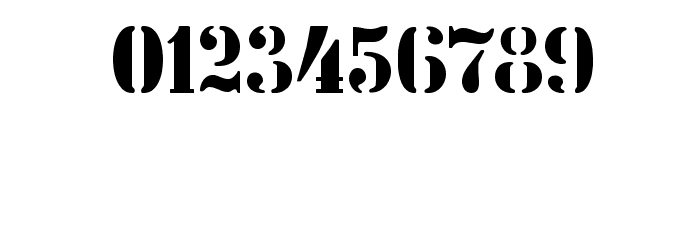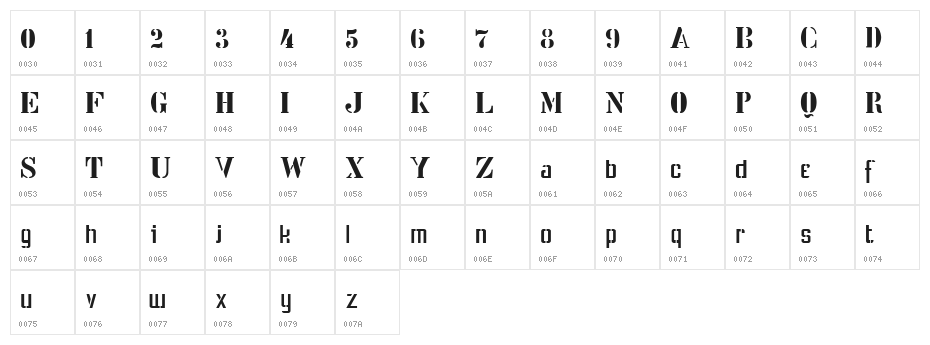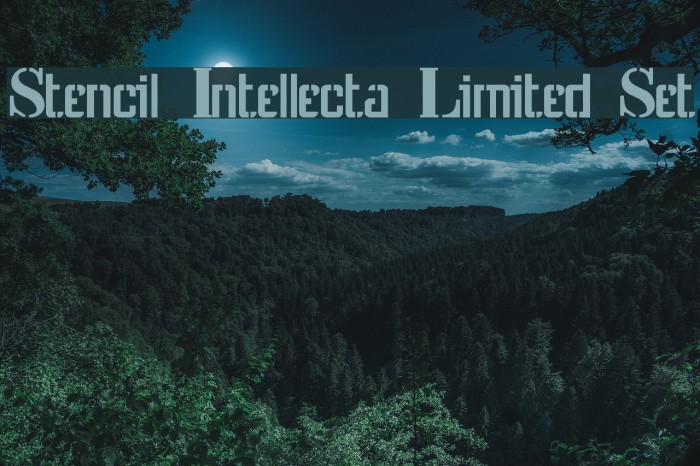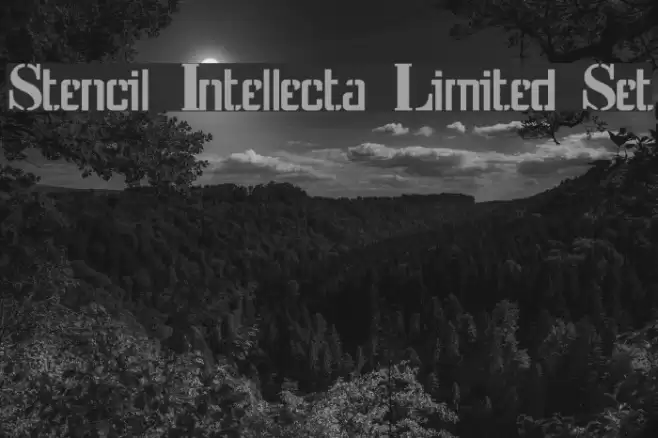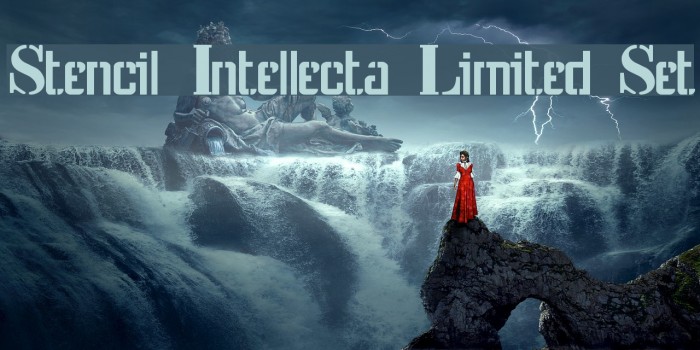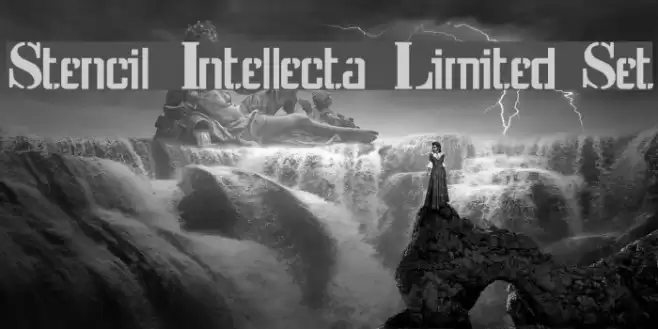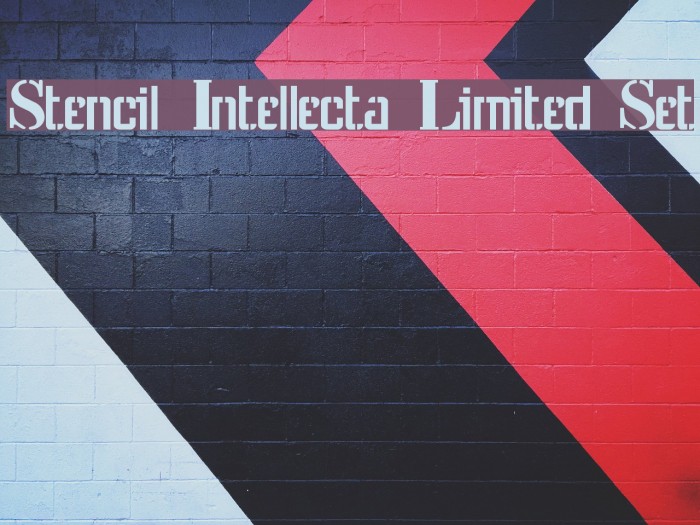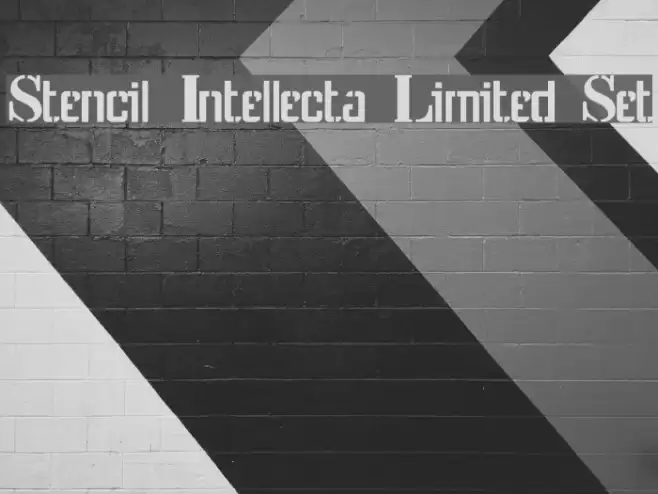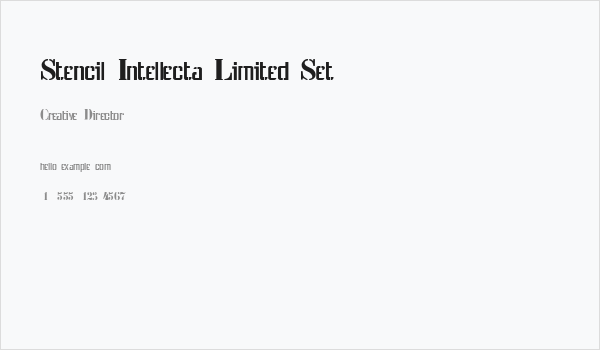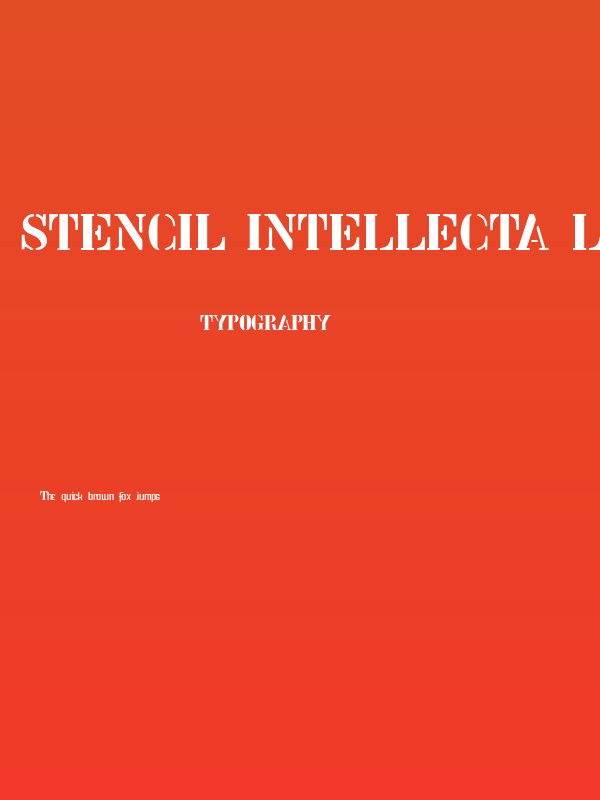
Stencil Intellecta Limited Set Font
Stencil Intellecta Limited Set Description
This font features a bold, stencil-like design with distinct cutouts that give it a rugged and industrial feel. The uppercase letters are particularly striking, with sharp angles and clean lines that create a sense of strength and stability. The lowercase letters maintain this boldness while offering a slightly more compact form. Numbers and special characters follow the same stencil pattern, ensuring consistency across all glyphs. The font's unique style makes it ideal for projects that require a strong visual impact, such as posters, signage, and branding materials.
| Overall Style | Industrial, Bold, Stencil |
| Use Case | Headlines, Logos, Signage |
| Proposed Projects | Ideal for posters, signage, branding, and any project requiring a strong visual impact. |